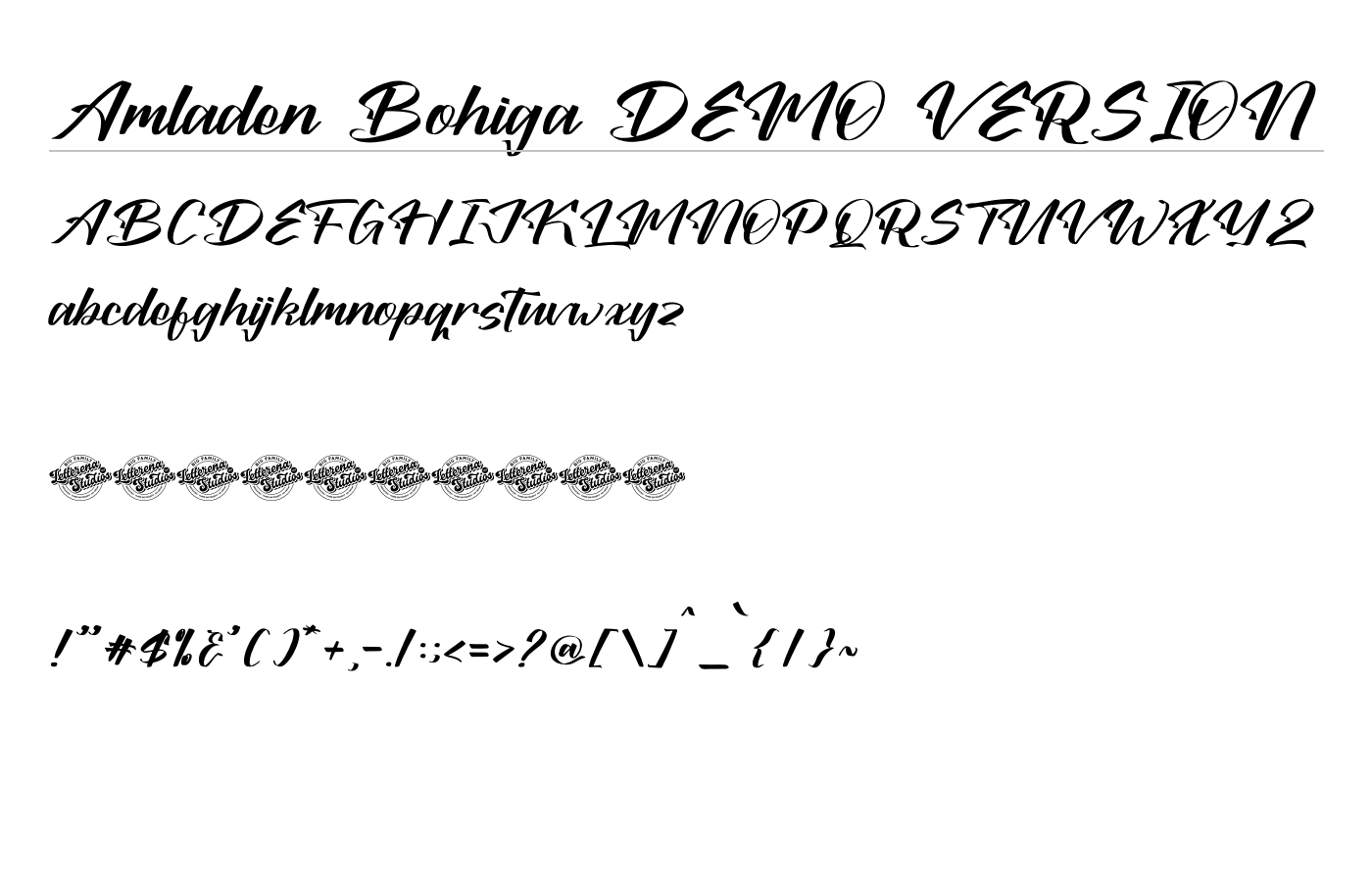
Amladen Bohiga DEMO VERSION is a stylish script font characterized by its fluid, handwritten calligraphic strokes that convey elegance and personality. Its moderate weight and lively, slightly angled letterforms make it perfect for adding a sophisticated, artistic touch to branding, invitations, and creative headlines. This font works best where a warm, approachable, and refined feel is desired, such as luxury packaging, fashion logos, or personalized editorial designs.
Amladen Bohiga DEMO VERSION Font
About Amladen Bohiga DEMO VERSION Font
| Font family | Amladen Bohiga DEMO VERSION Font |